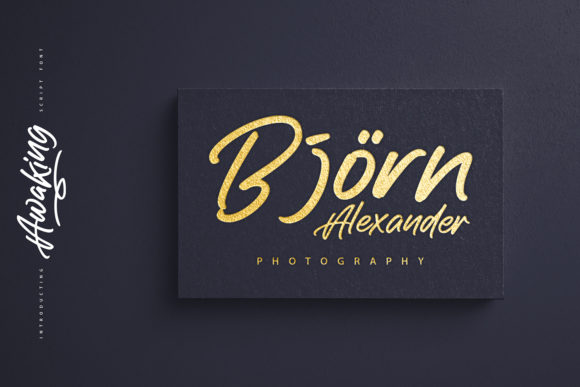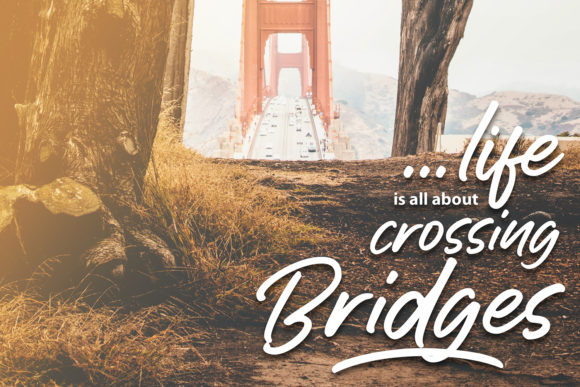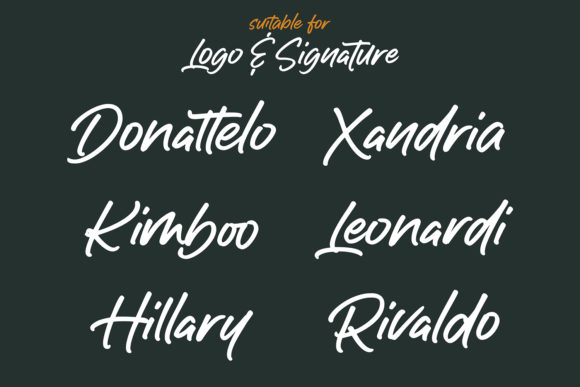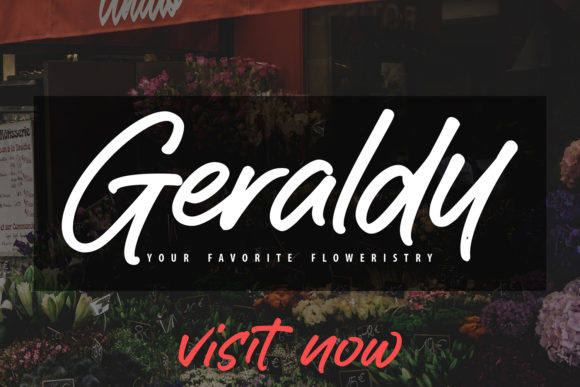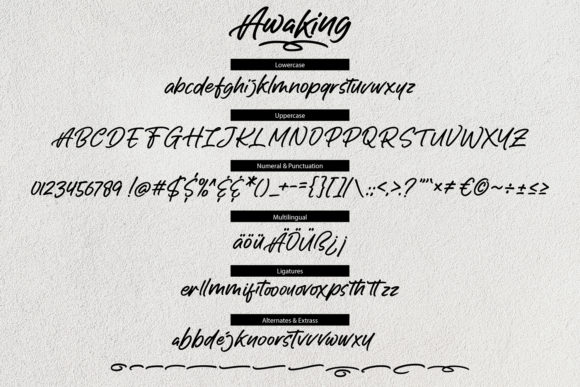
The Birth of a Handwritten Masterpiece: Awaking Font
As a designer, there’s nothing quite like the rush of creating something from scratch. The blank canvas, the endless possibilities, and the thrill of bringing a concept to life. It’s in these moments that we discover our true potential, and for me, that moment came when I stumbled upon the Awaking Font. This ravishing handwritten font is the perfect blend of elegance and whimsy, making it a must-have for any urban or casual design that needs a handwritten touch.
With its PUA encoded glyphs and swashes, the Awaking Font is a designer’s dream come true. No more tedious searching for the perfect letter or symbol – with this font, you can access everything you need with ease. Whether you’re a seasoned pro or just starting out, the Awaking Font is an invaluable addition to any design arsenal.
Awaking Font Key Features
- Unique Characteristics: The font features a unique blend of modern and elegant design elements, making it ideal for creative projects and branding.
- Kerning and Ligatures: The font includes advanced kerning and ligature features, ensuring smooth and professional text rendering.
Awaking Font Review
As a designer, I was excited to dive into the Awaking Font and see what it had to offer. Here are my honest thoughts on this font.
- The Awaking Font has a beautiful, modern design that is sure to stand out in any project.
- The font’s unique blend of sleek lines and curved shapes makes it perfect for digital applications, such as mobile apps, websites, and social media graphics.
- The font is highly customizable, allowing designers to easily adjust the size, color, and spacing to suit their needs.
- The Awaking Font is also highly legible, making it an excellent choice for body text and other areas where readability is crucial.
- The Awaking Font may not be the best choice for print materials, as its digital design may not translate well to paper.
- The font’s unique design may not be suitable for all types of projects, such as formal documents or traditional publications.
- The font’s customization options may be overwhelming for some designers, especially those with limited experience.
The Awaking Font is a solid choice for designers looking for a modern, digital font that can add a touch of sophistication to their projects. While it may have some limitations, its unique design and high customization options make it a valuable asset in any designer’s toolkit.
Tips for Getting the Most Out of Awaking Font
To get the most out of Awaking Font, consider the following tips:
- Use Awaking Font in bold or italic styles to add emphasis to your text.
- Combine Awaking Font with other fonts to create a unique and eye-catching design.
Awaking Font is commonly used in:
- Graphic design projects.
- Marketing materials.
- Use the Awaking Font for the journal title and headings.
- Combine with handwritten or cursive script for a personal touch.
- Watercolor illustrations of flowers or leaves.
- Gold or copper foil accents for added luxury.
- Use the Awaking Font for the invitation’s main text, such as the wedding date and location.
- Combine with a playful, cursive script for the couple’s names.
- Watercolor illustrations of flowers, birds, or other whimsical elements.
- Gold or silver foil accents for added luxury.
Q: Can I customize Awaking Font for my specific project needs?